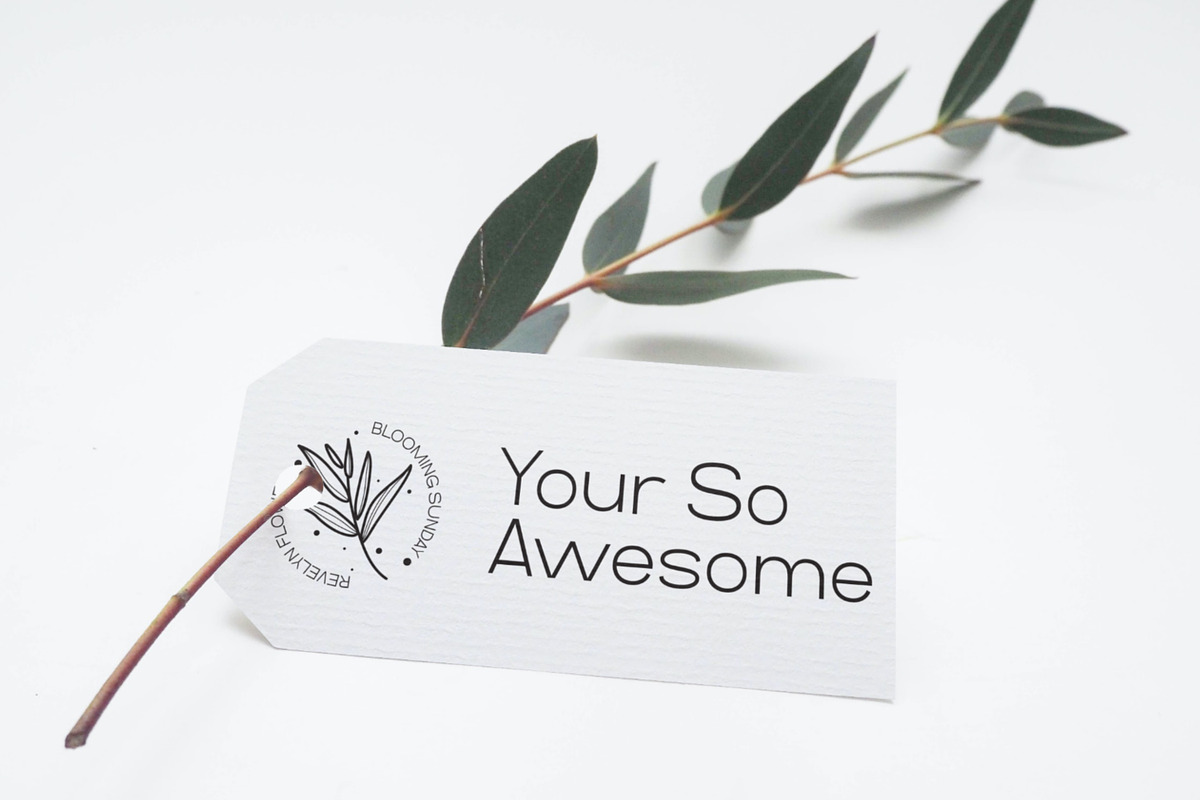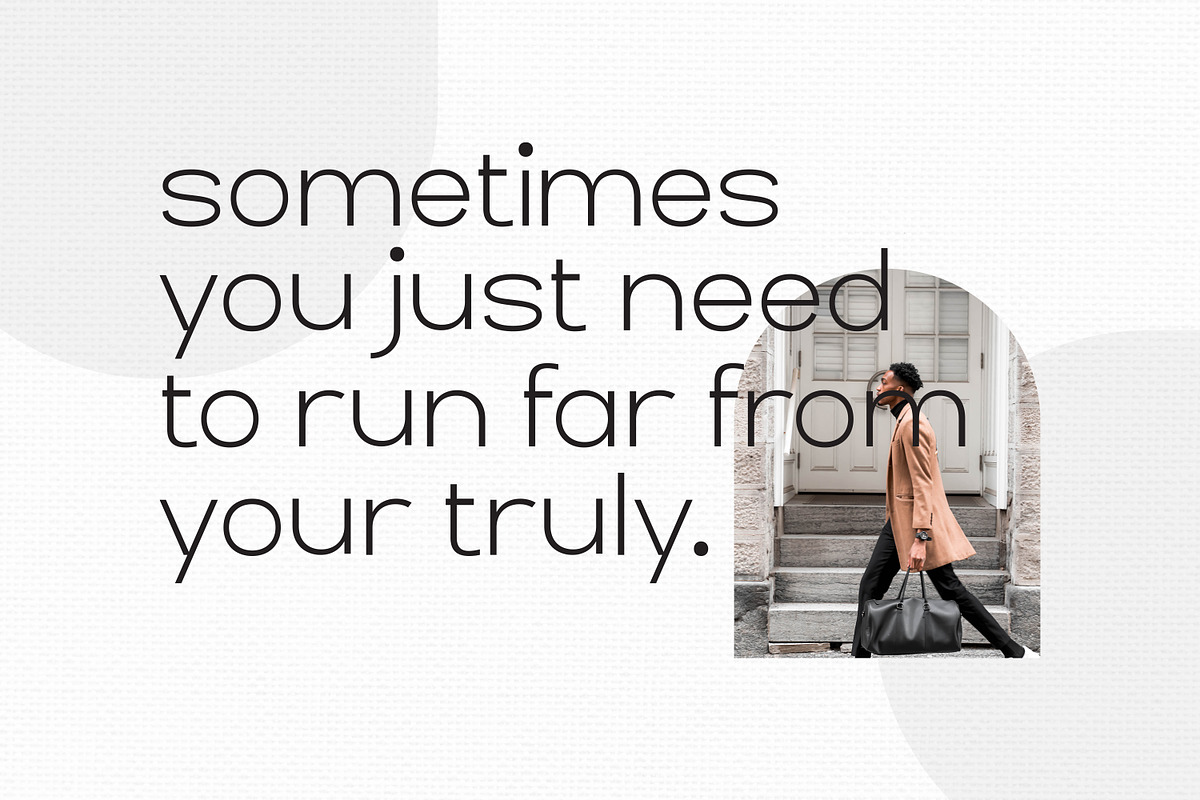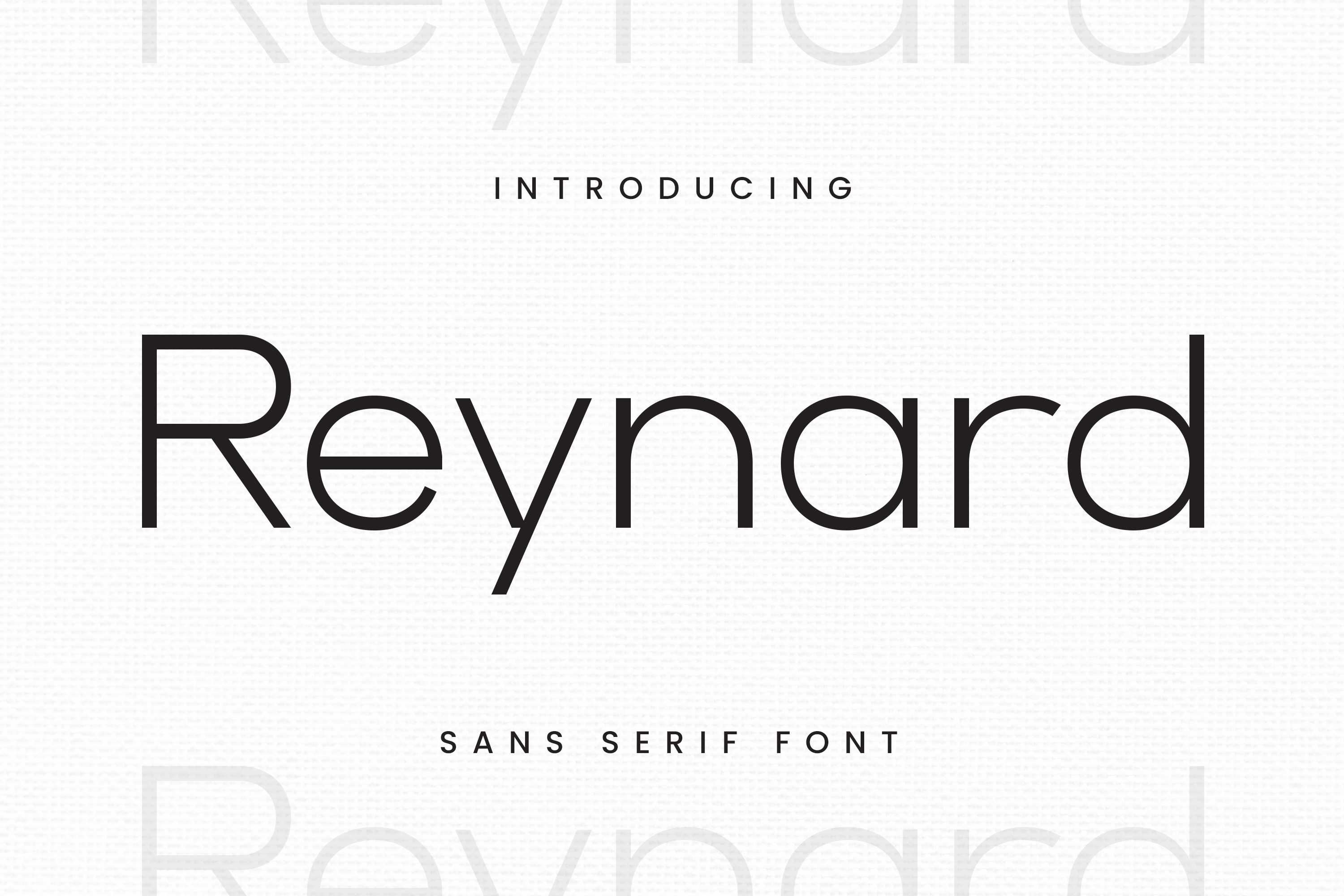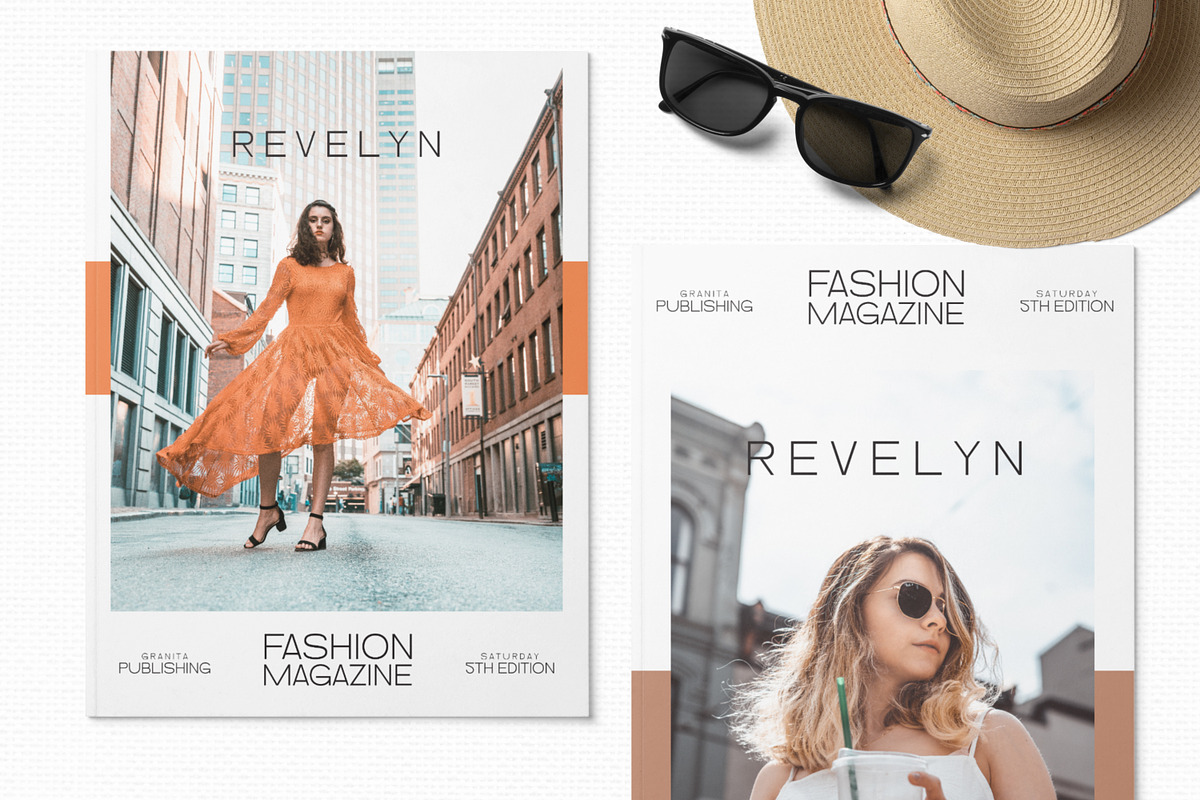
Reynard - Thin Elegant Font
Reynard is a minimalist sans serif typeface, designed with ultra thin monoline strokes, generous spacing, and smooth geometric curves, this font delivers a refined high-fashion aesthetic ideal for premium branding and editorial applications.
The letterforms feature tall proportions, rounded counters, and clean open shapes that create an airy and contemporary look. Its balanced construction combines the precision of geometric design with subtle humanist touches, making it highly readable while maintaining a luxurious visual presence.
Reynard includes uppercase and lowercase characters, multilingual accents, numerals, and punctuation. The font perfect for magazine layouts, beauty packaging, social media templates, invitations, and modern lifestyle branding.